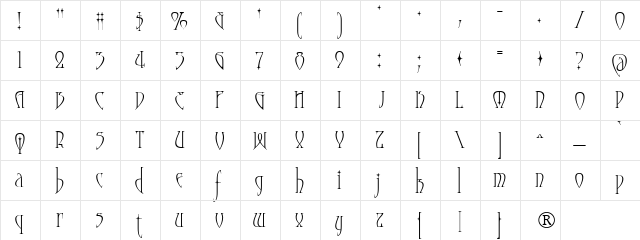
Moonstone Regular
| Foundry | Gophmann A.L. |
Design Context for Moonstone Typeface
Moonstone is a composed and adaptable typeface that performs quietly and consistently across a wide range of design contexts.